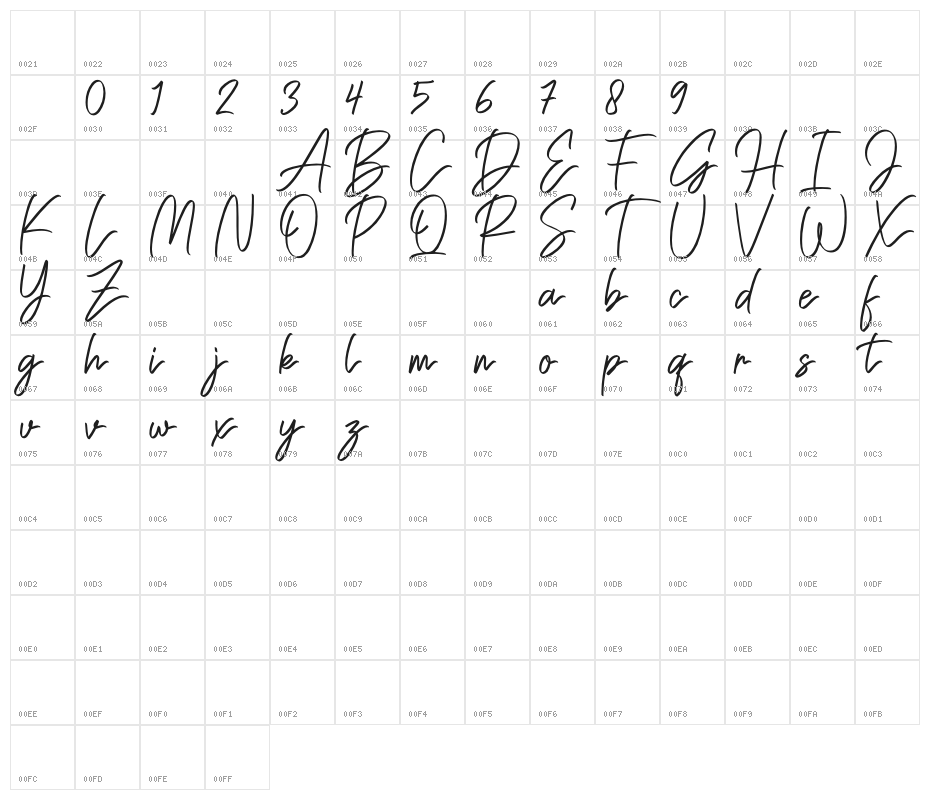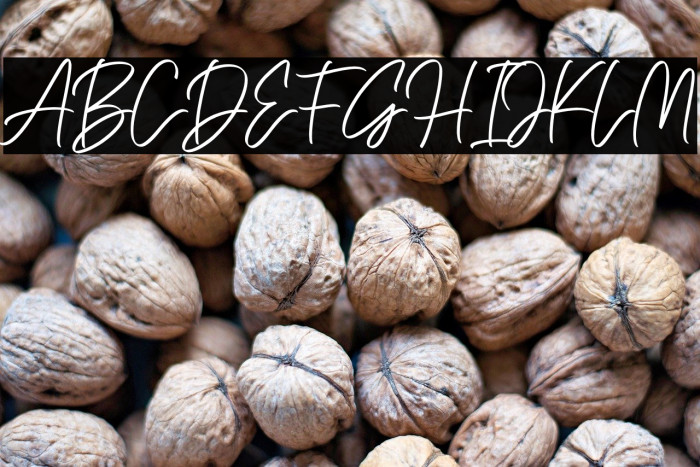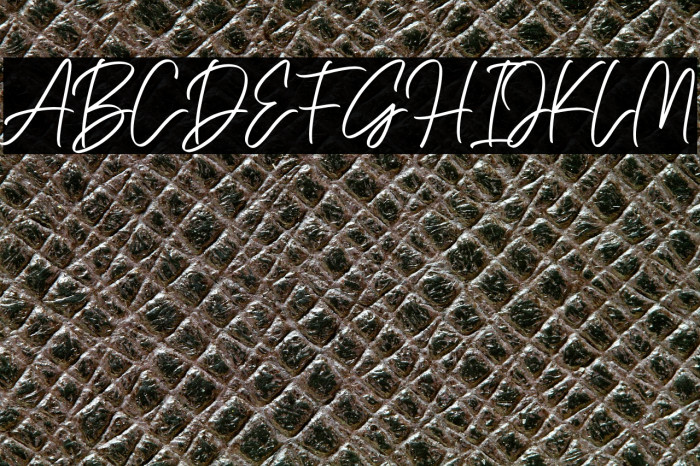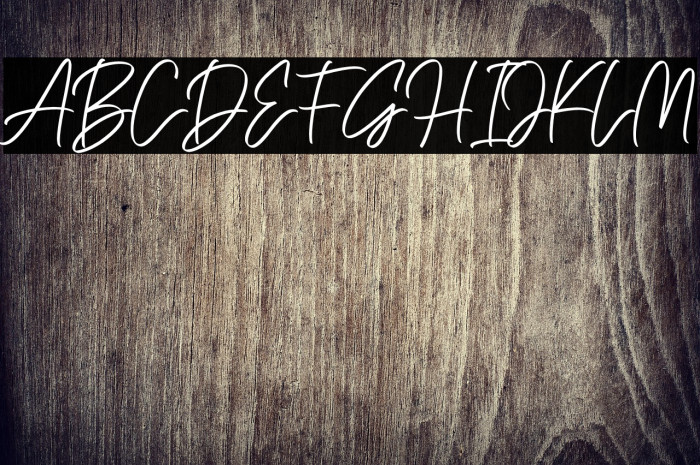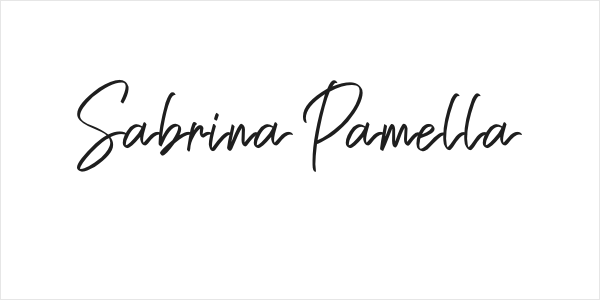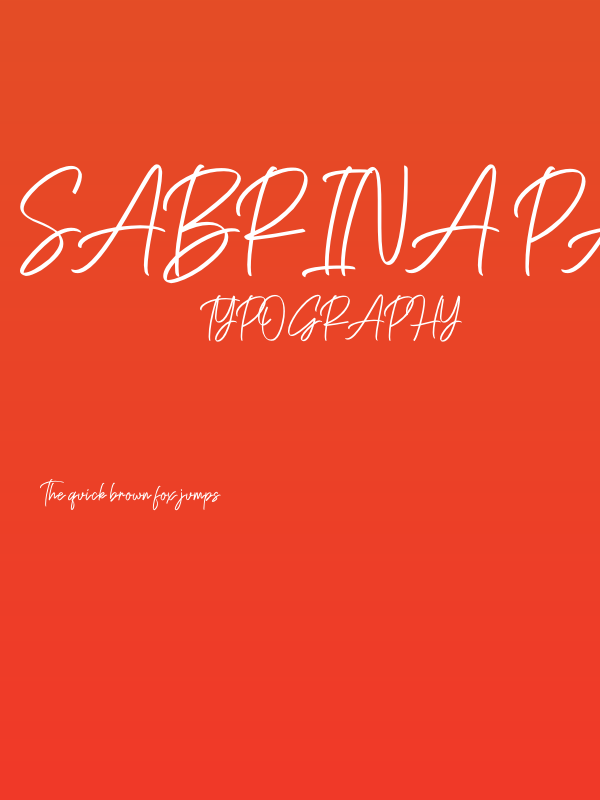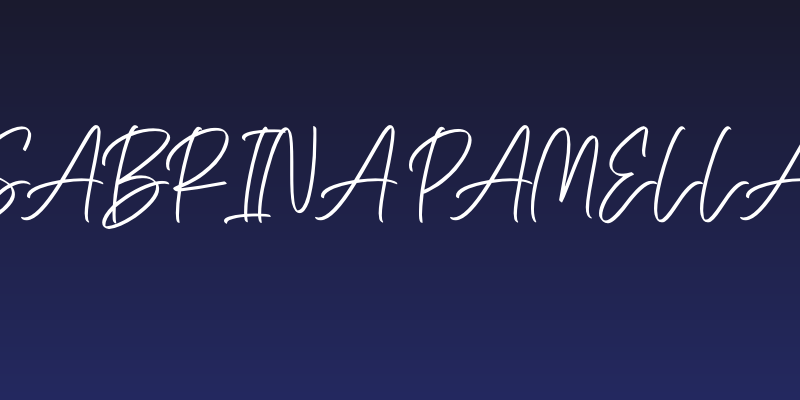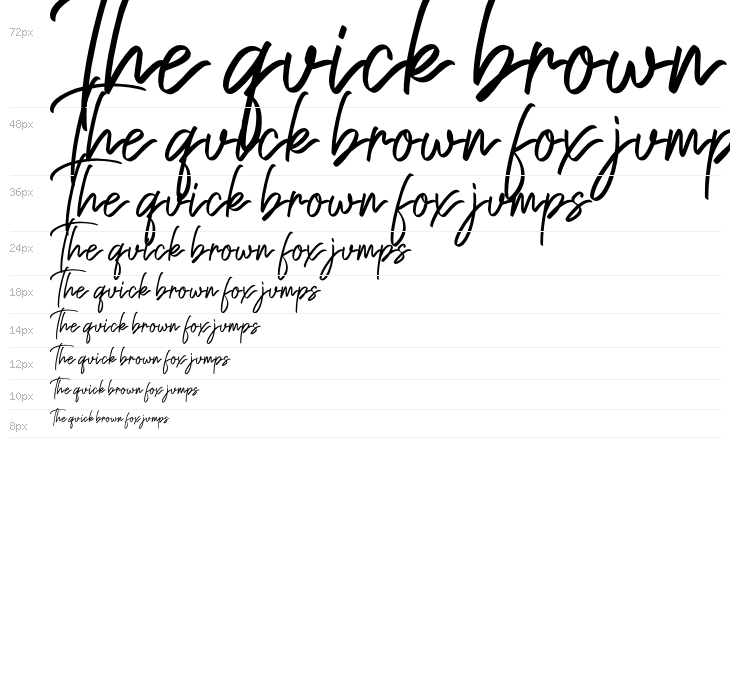
Sabrina Pamella Font
Sabrina Pamella Description
This font features a stylish, handwritten script style that exudes elegance and fluidity. The uppercase letters are tall and slender, with a slight slant that adds a dynamic feel. The lowercase letters are more rounded and connected, creating a seamless flow that mimics natural handwriting. The numbers maintain the same fluidity, with a consistent stroke width that ensures readability. Special characters are crafted with the same attention to detail, making them blend effortlessly with the rest of the font. This font is perfect for projects that require a personal touch, such as invitations, greeting cards, or branding materials.